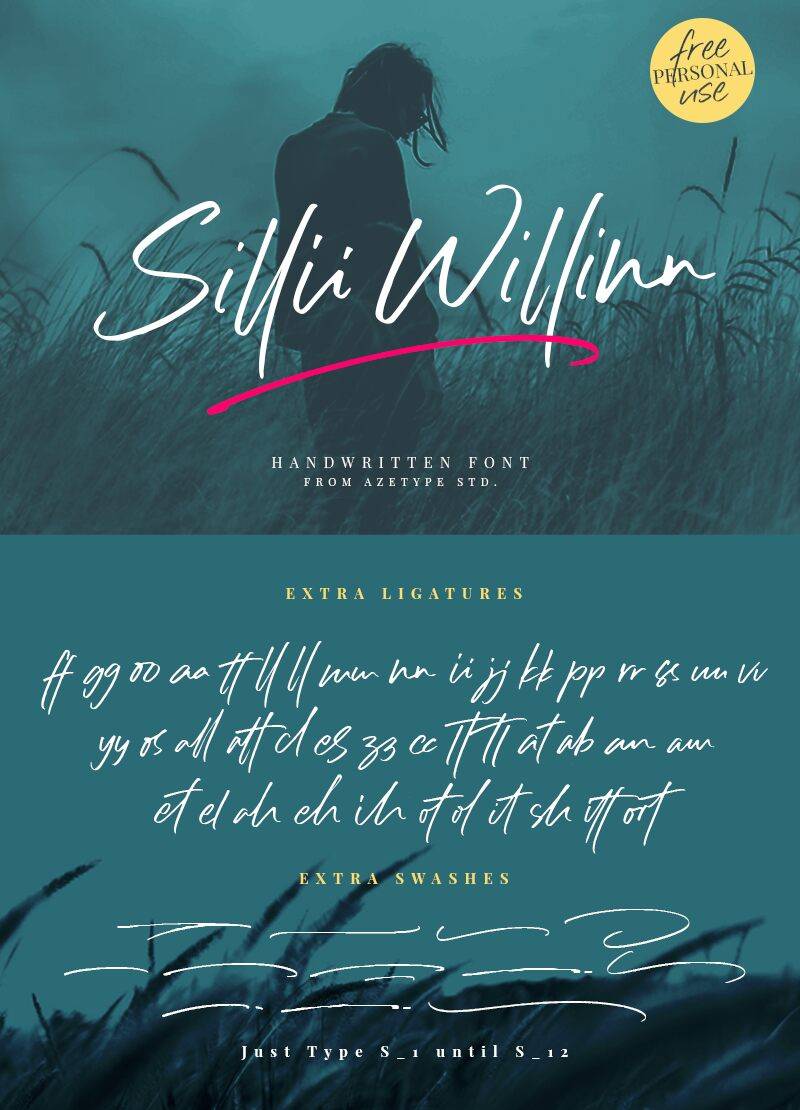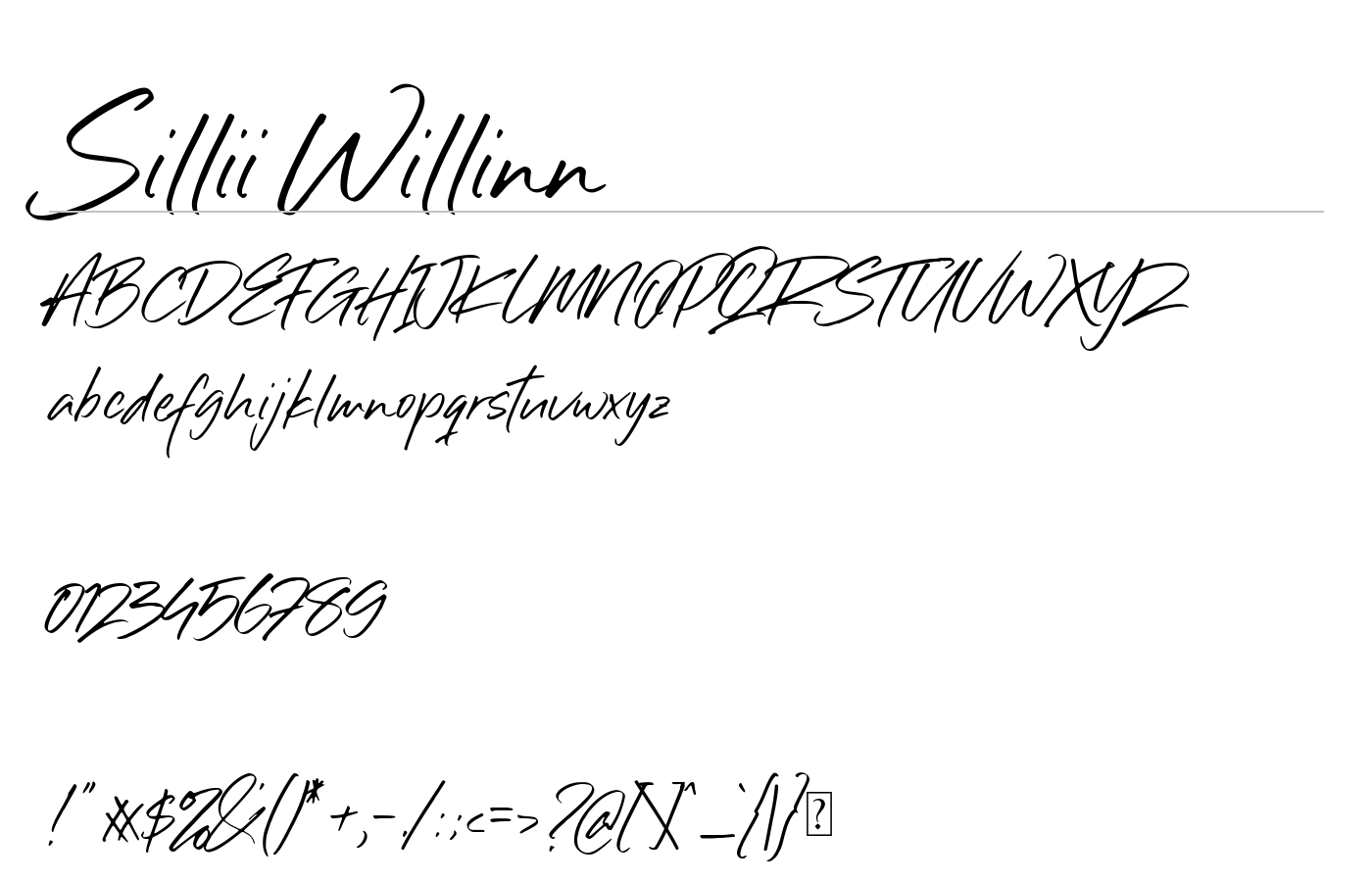
Sillii Willinn Handlettering is a stylish script font with a casual, handwritten feel, featuring smooth, flowing strokes and a light to regular weight. Its slender, slightly slanted letterforms convey a personal and elegant touch, making it ideal for creative projects that need a warm, approachable look. This font works beautifully for branding, invitations, and social media designs where an authentic and friendly vibe is desired.
Sillii Willinn Handlettering
About Sillii Willinn Handlettering
| Font family | Sillii Willinn Handlettering |
| Designer | Muh. Aswar |